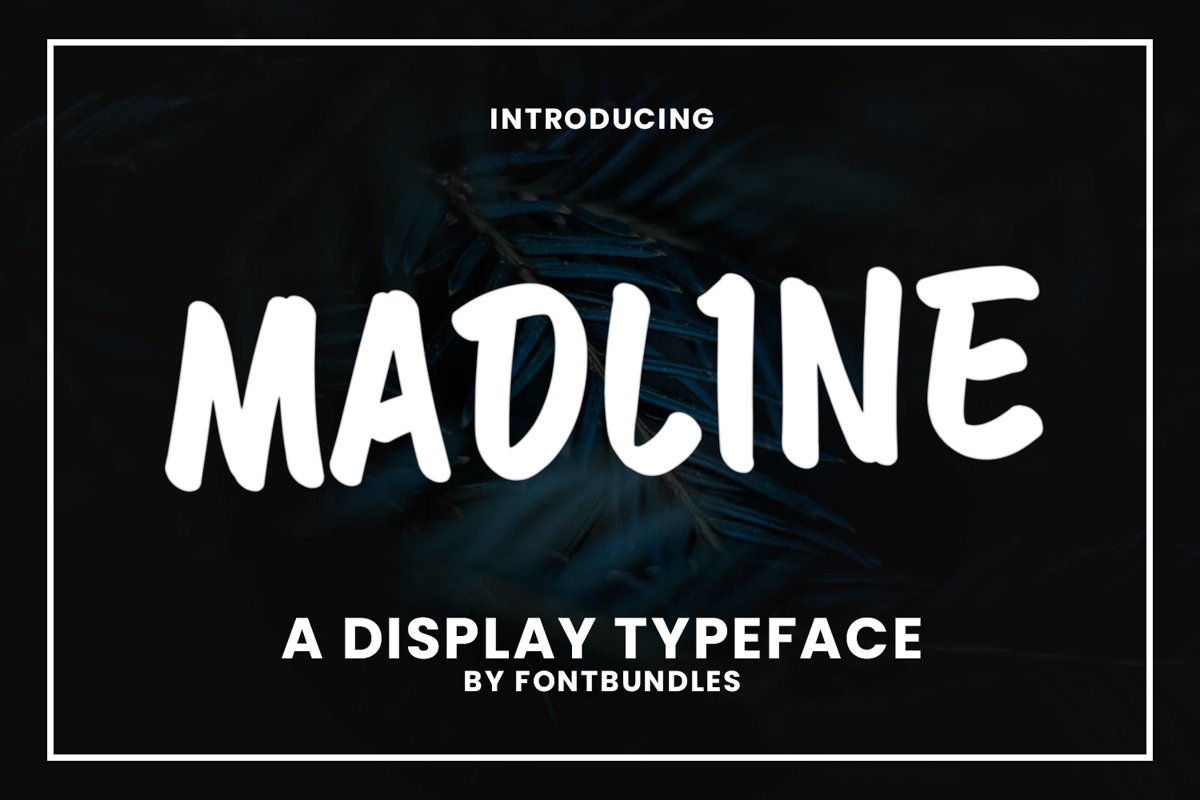
Madline is a display typeface. Perfect for display, header, tittle, logo, logotype, branding, business card, packaging, merchandise, quotes and many more.